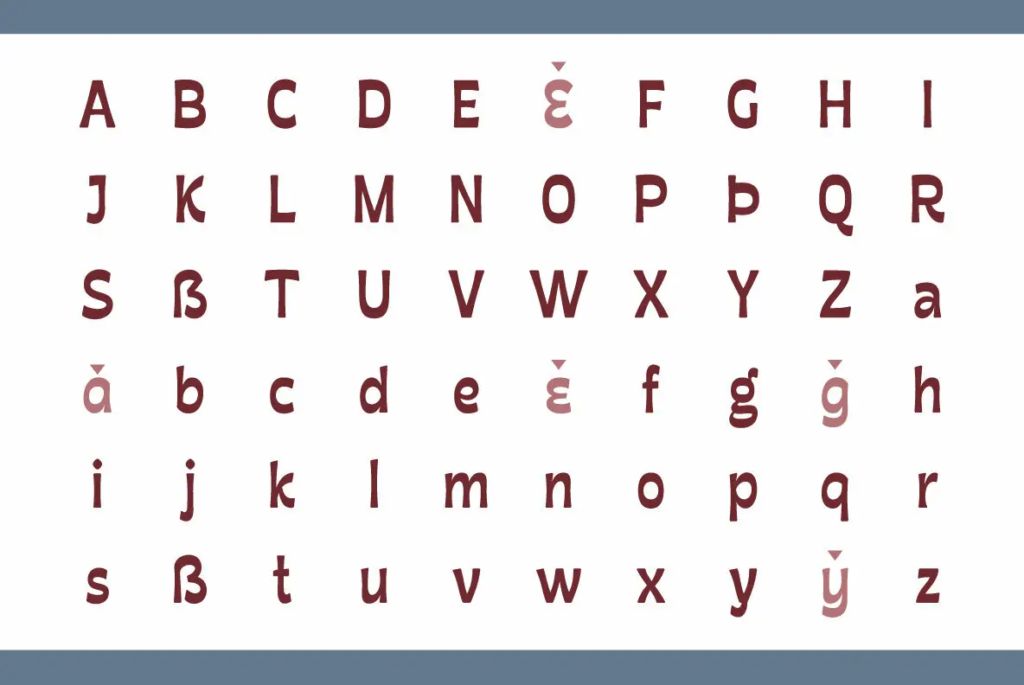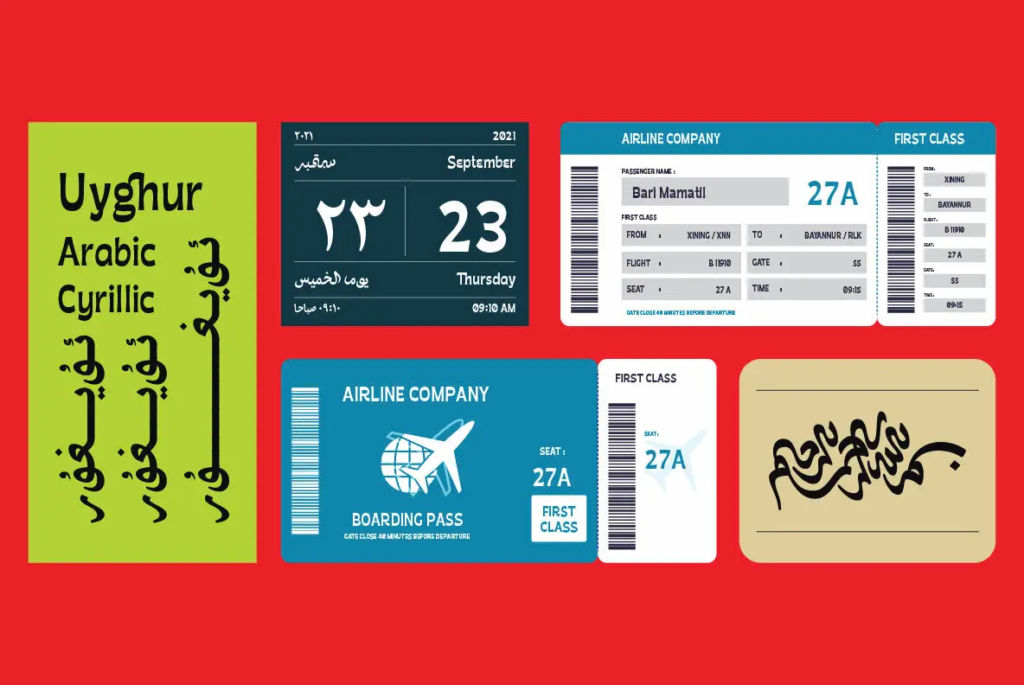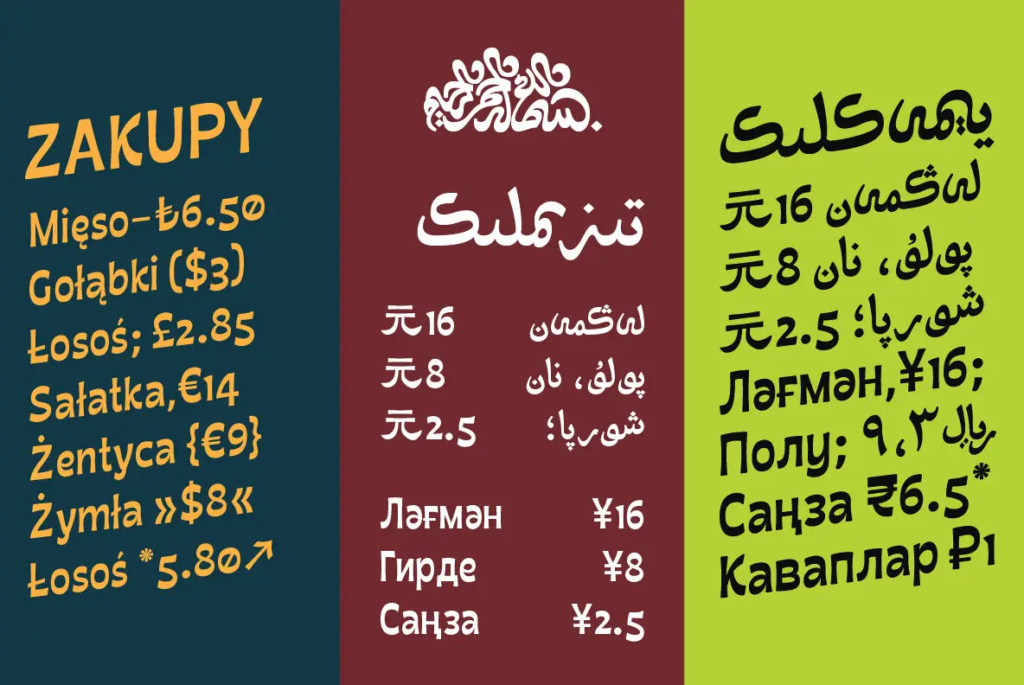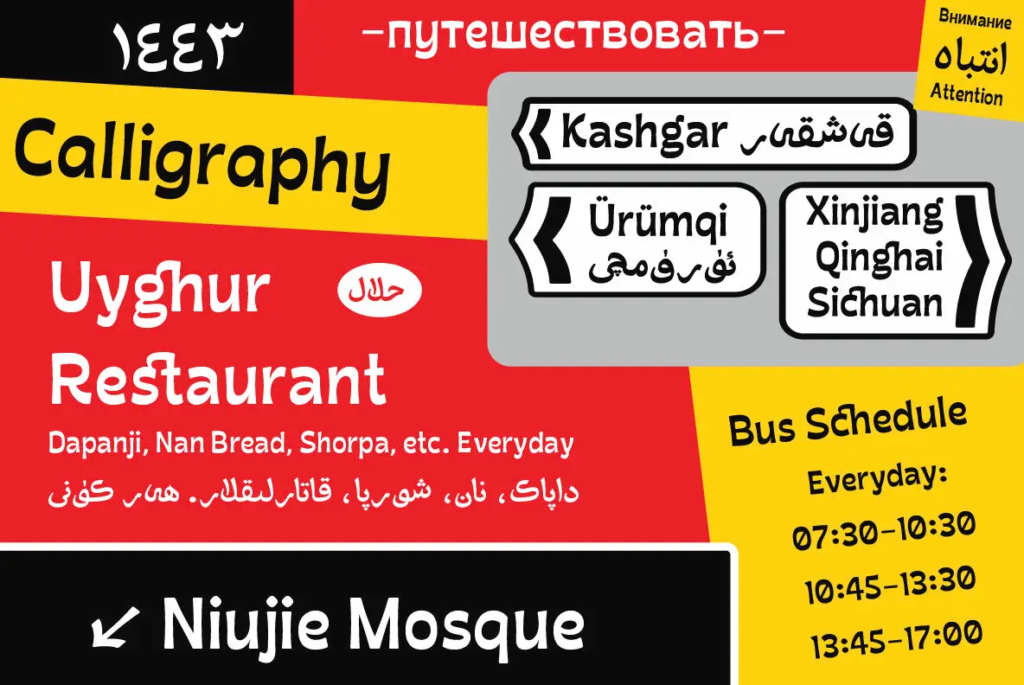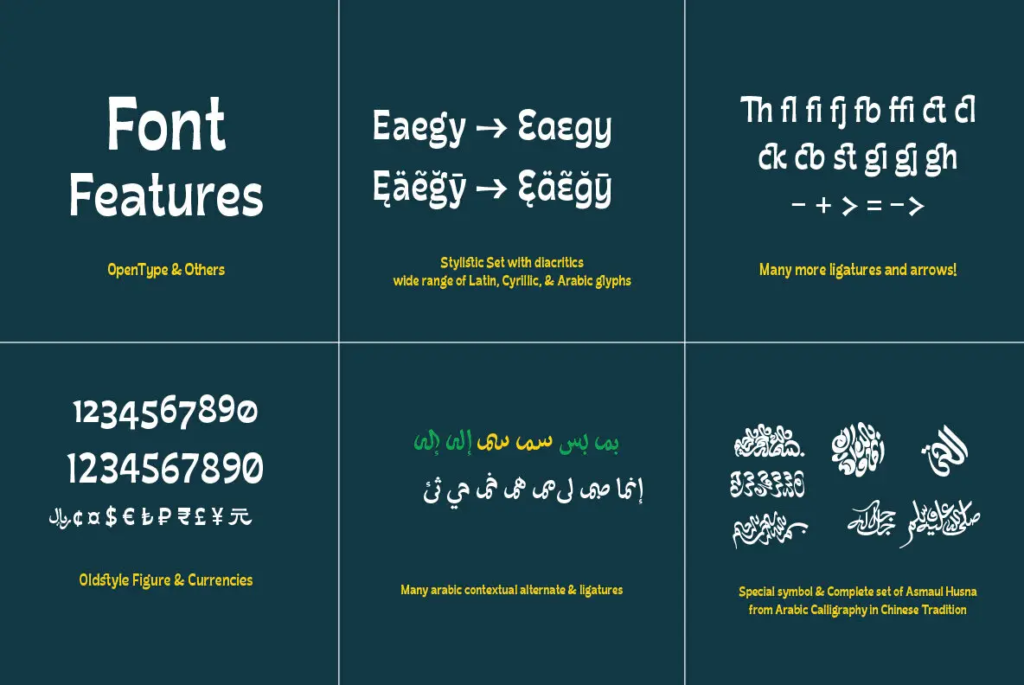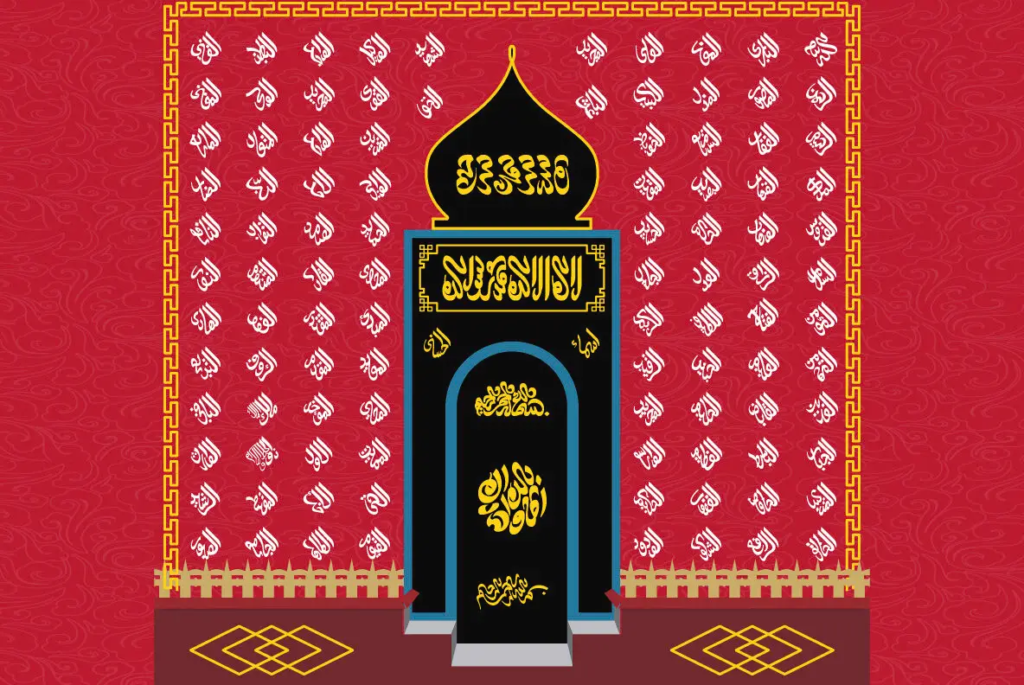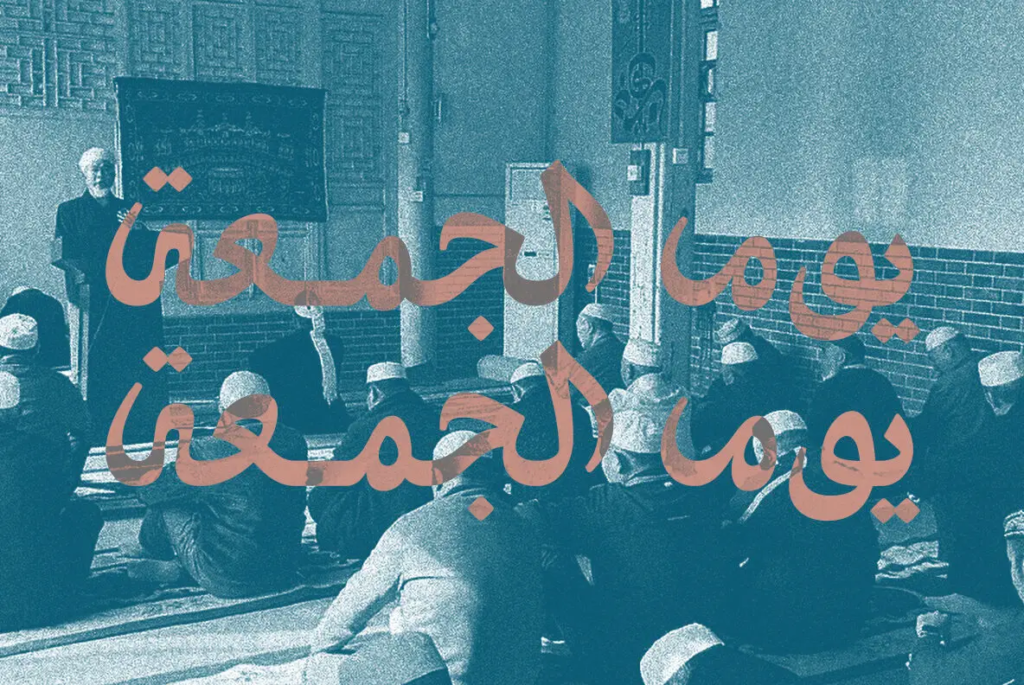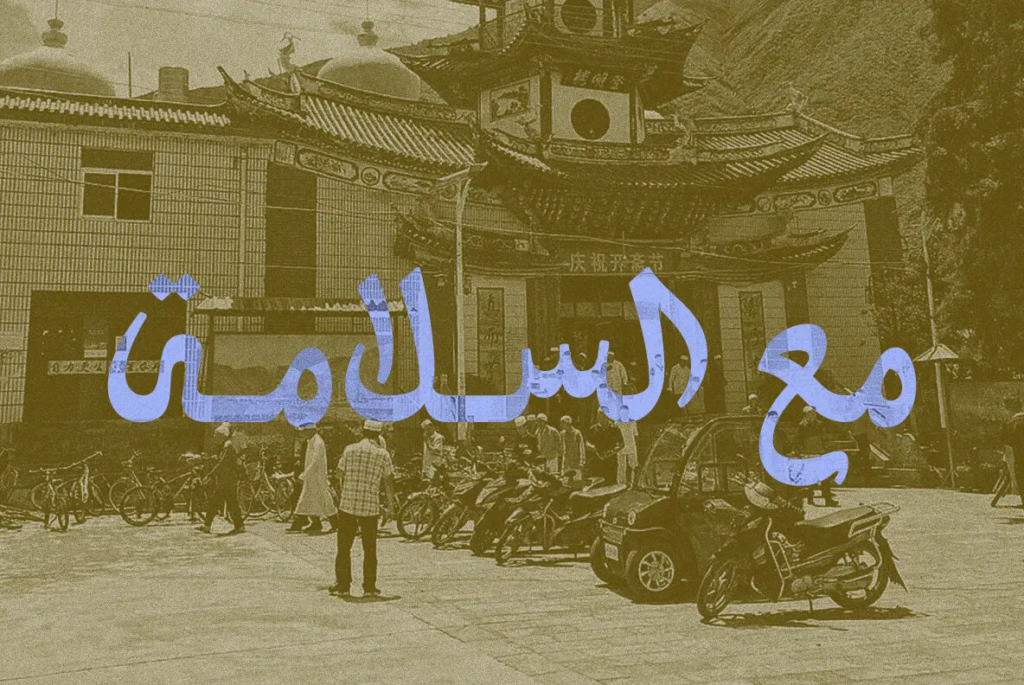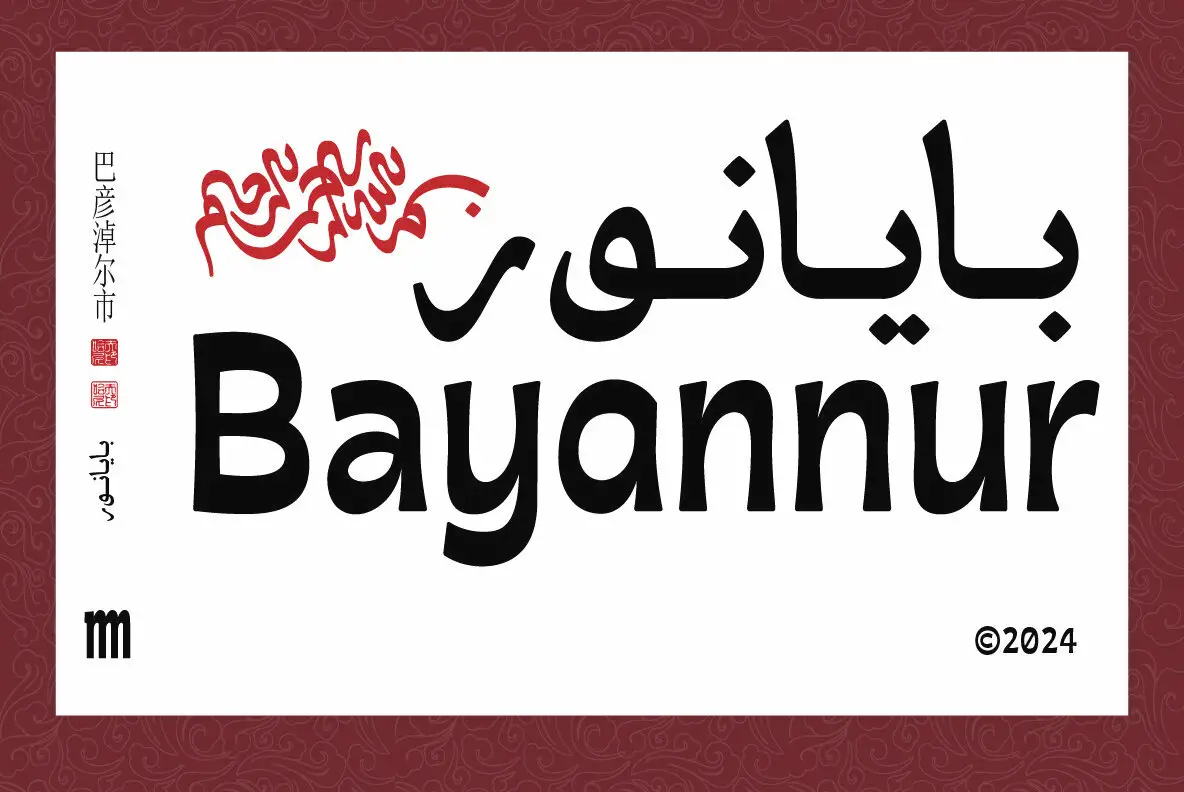
Mo Bayannur Font
Bayanur represents a fascinating intersection of cultures—bringing together the artistic traditions of Arabic calligraphy as interpreted through Chinese visual culture. This unique typographic fusion creates a distinctive voice that honors multiple heritage traditions while offering practical support for contemporary multilingual needs.
Cultural Fusion Design:
- Inspired by Arabic calligraphy in Chinese tradition
- Unique blend of Islamic and East Asian aesthetics
- Distinctive visual character with cross-cultural appeal
- Artistic expression with historical depth
Arabic Script:
- Complete Arabic character set with unique design
- Multiple alternate characters for stylistic variety
- Extensive ligatures for authentic calligraphic flow
- Specific support for Uyghur language typing
- Full diacritical marks and proper connections
Latin Script:
- Extensive Latin character support
- Ligatures and stylistic sets for professional typography
- Coordinated design matching Arabic character
- Complete uppercase and lowercase
Cyrillic Script:
- Full Cyrillic character support
- Harmoniously integrated with overall design
- Professional coverage for Slavic languages
- Cross-Cultural Projects: Designs bridging Islamic and East Asian traditions
- Uyghur Language Materials: Authentic typography for Uyghur content
- Multilingual Publishing: Works spanning Arabic, Latin, and Cyrillic scripts
- Artistic Branding: Distinctive identities with cultural depth
- Editorial Design: Magazines and books with unique character
- Web Design: Global digital experiences
- Packaging: Products with international appeal
- Cultural Institutions: Museums, galleries, heritage centers
- Unique Cultural Fusion: Arabic calligraphy through Chinese tradition
- Extensive Language Support: Arabic, Latin, Cyrillic, and Uyghur
- Rich Typographic Features: Ligatures, alternates, style sets
- Professional Quality: Published by Monoco Type Foundry
- Versatile Application: Perfect for multicultural projects
Key Features of Bayanur Font:
- Arabic calligraphy inspired by Chinese tradition
- Complete Arabic with Uyghur language support
- Extensive Latin with ligatures and style sets
- Full Cyrillic character set
- Multiple alternates and many ligatures
MO Bayannur is a typeface inspired by Arabic Calligraphy in Chinese Tradition. This font has extensive Latin script support with many ligatures and stylistic sets, as well as Cyrillic and unique Arabic design with contextual alternates and many ligatures. The glyphs in this font also specifically support Uyghur script typing. Abdurrahman Hanif, designer based in Jakarta, trying to develop this font as his appreciation for this beautiful Art of Calligraphy.